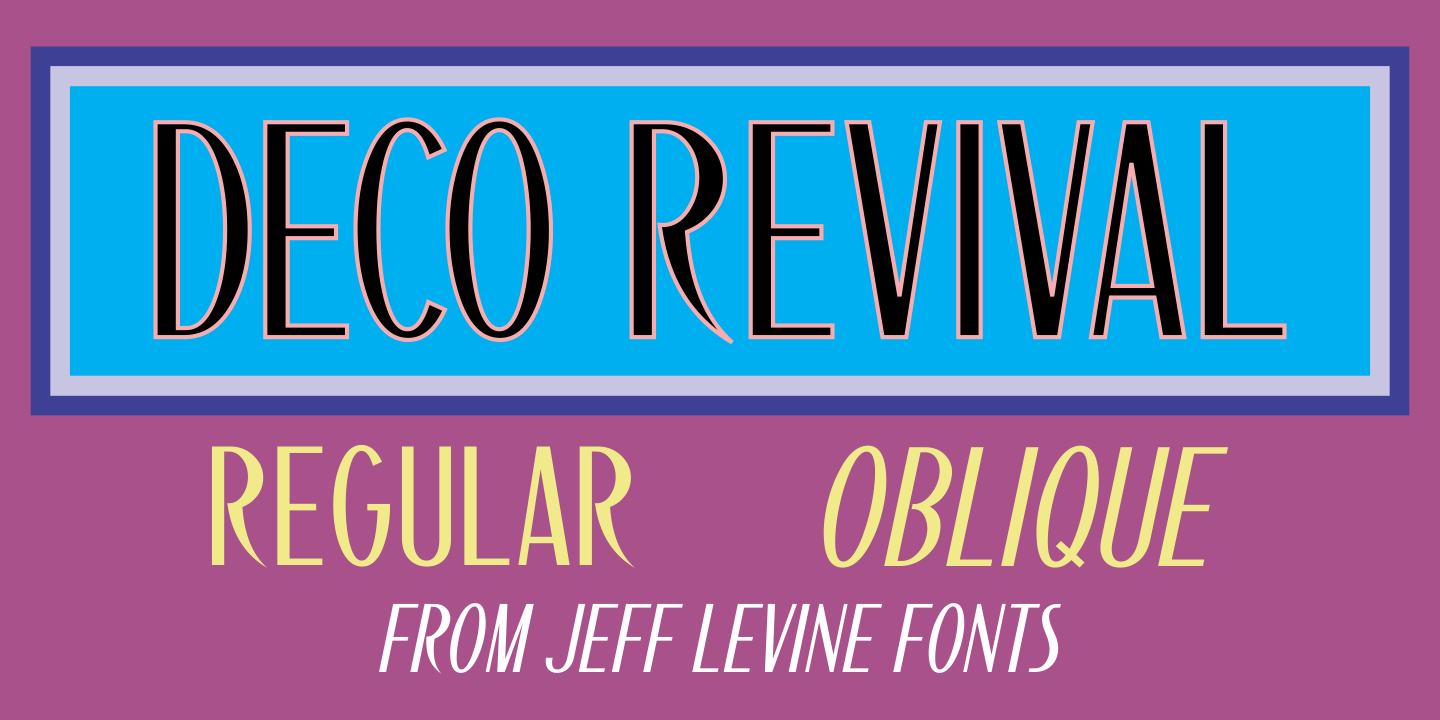
Deco Revival JNL Font Free Download is a stylish and vintage-inspired typeface that captures the bold elegance of the Art Deco era. With its geometric shapes, clean lines, and decorative flair, it is an ideal choice for branding, posters, invitations, signage, and projects that require a touch of 1920s and 1930s sophistication.
The font’s balanced design ensures excellent readability while bringing a sense of luxury, nostalgia, and timeless style to both print and digital applications. Deco Revival JNL is especially effective for projects aiming to evoke glamour, elegance, and a distinctive historical character.
Deco Revival JNL is a perfect addition to any designer’s toolkit, offering classic beauty and strong visual appeal for projects that celebrate vintage elegance and Art Deco sophistication.